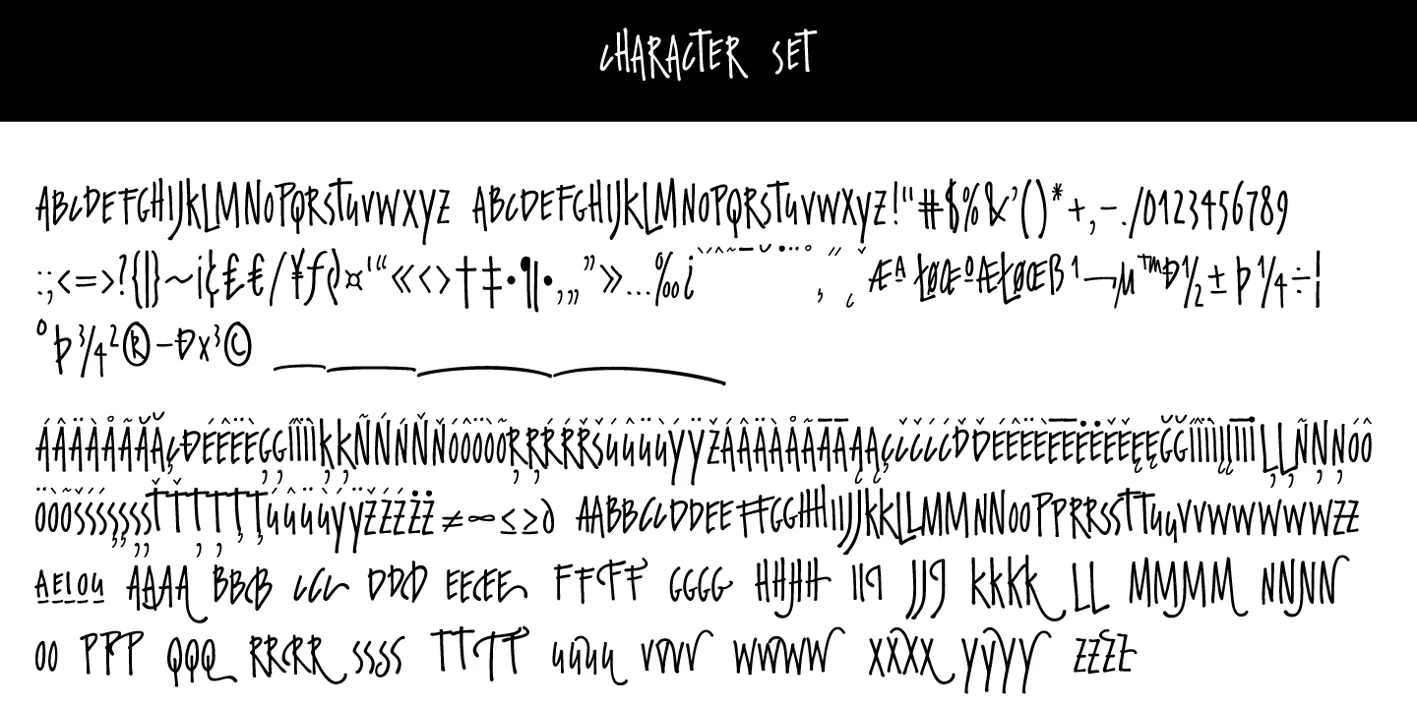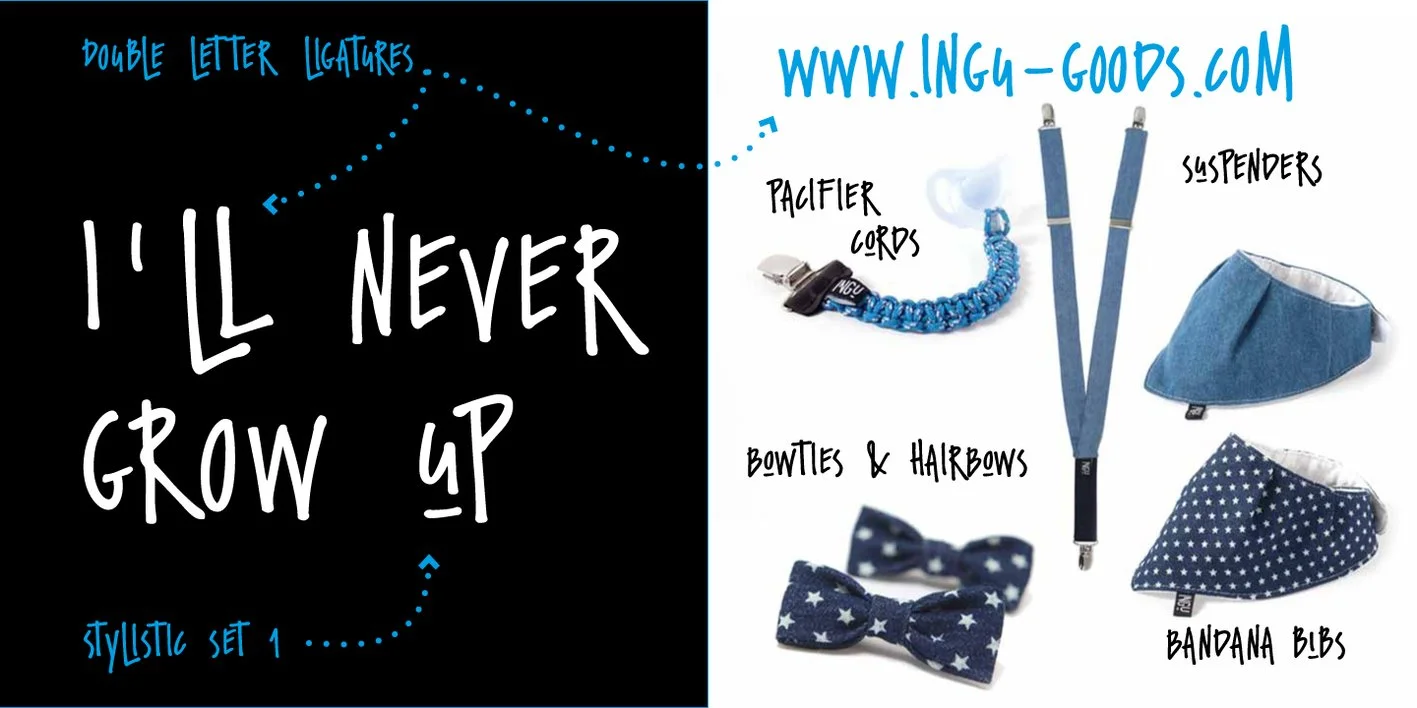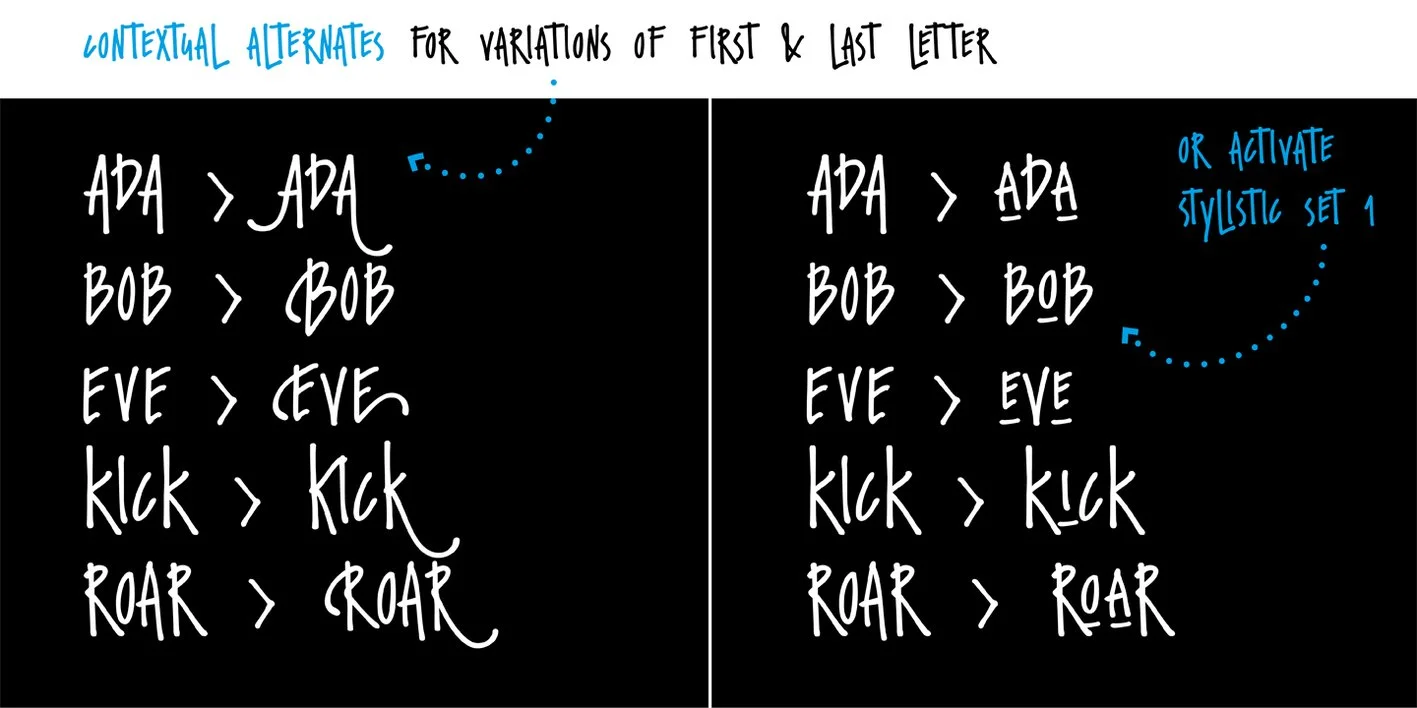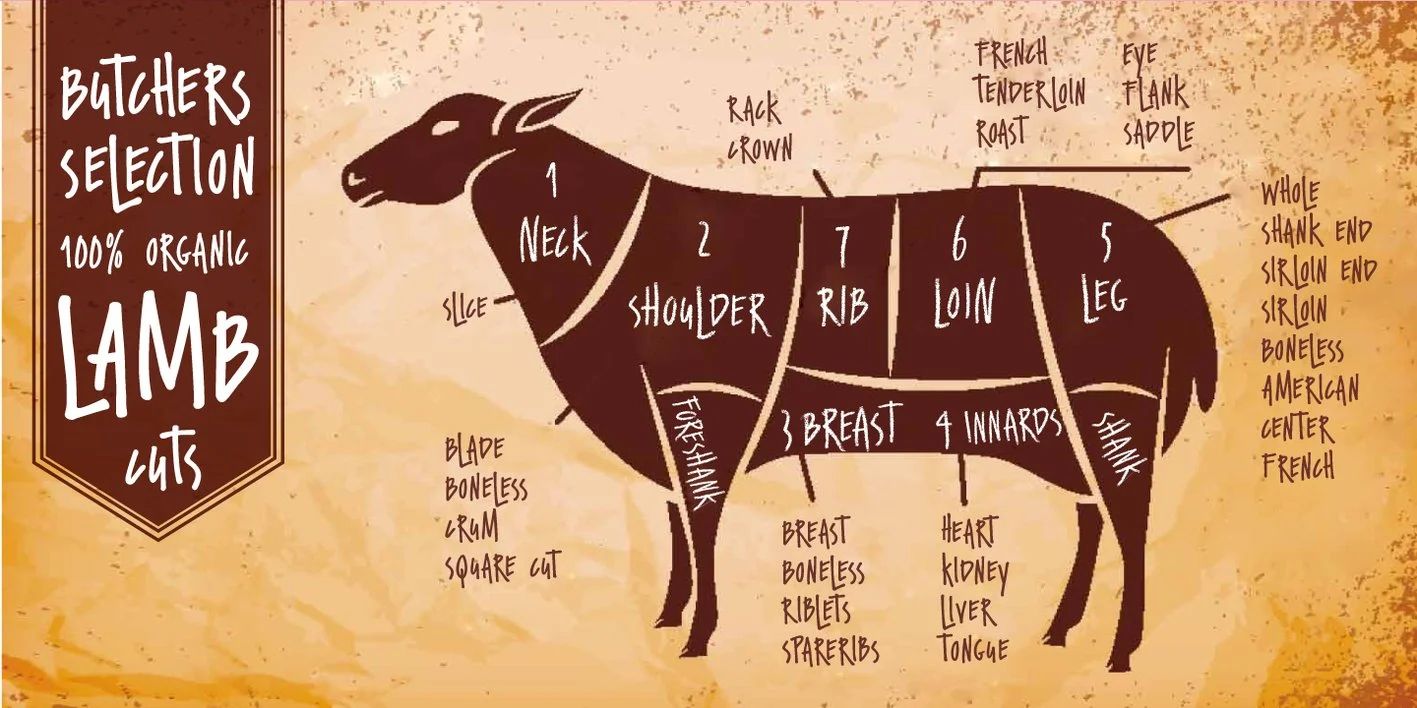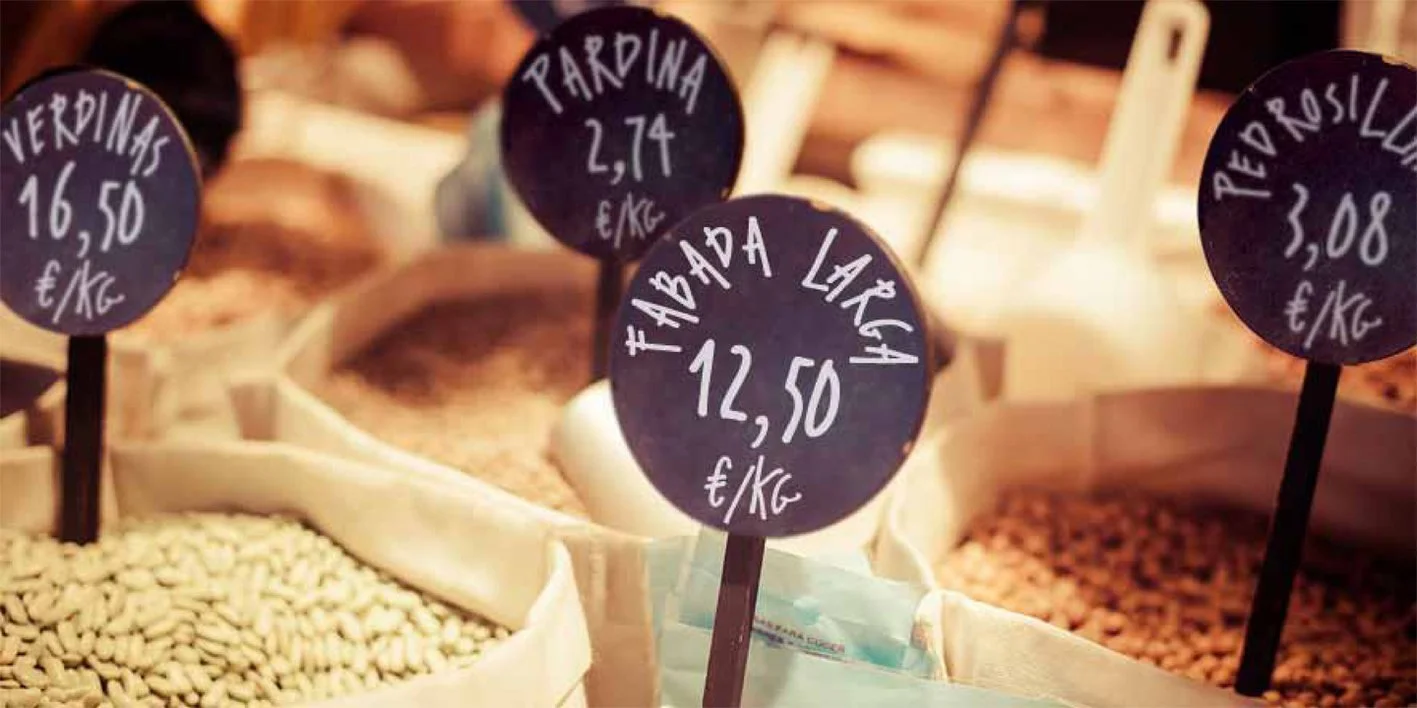
Wallet Font
When a design brief calls for both a confident voice that adapts to diverse briefs and immediate visual impact, type choices matter — Wallet answers that brief. The typeface brings a versatile sensibility to a broad range of creative disciplines, with visual harmony and precise spacing that holds up whether the work is print-first or screen-first.
In practice, Wallet proves particularly effective for annual reports, environmental graphics, web design, editorial layouts, social media graphics. Designers reaching for it find that the type decisions feel resolved rather than laboured — a useful quality when client timelines are tight.
The range of applications extends to brand identity systems, signage systems, logo design, advertising campaigns. That breadth is deliberate: the proportions and spacing were stress-tested across a wide range of mock briefs before the typeface was finalised.
The consistent rhythm of Wallet across a full paragraph creates the kind of even grey value that makes extended reading comfortable, a detail that matters more in long-form content than its subtlety might suggest.
Graphic designers working on identity systems find Wallet a reliable choice for projects that demand both personality and restraint. The design avoids the self-conscious quirkiness that dates quickly, settling instead for considered distinctiveness that holds up over time.